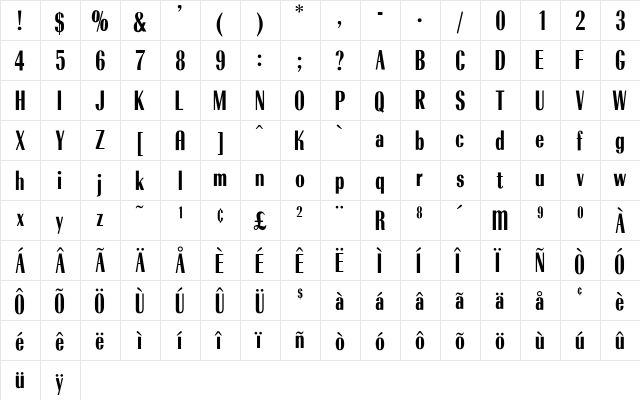
OPTIRadiantBold-Condensed Regular Font Preview
Design Context for OPTIRadiantBold-Condensed Typeface
OPTIRadiantBold-Condensed offers clean, dependable letterforms without strong stylistic allegiance, making it a practical choice for designers who need flexibility. Its bold stroke weight gives it real presence on the page. Its narrow stance lets it pack a punch even in space-constrained designs.